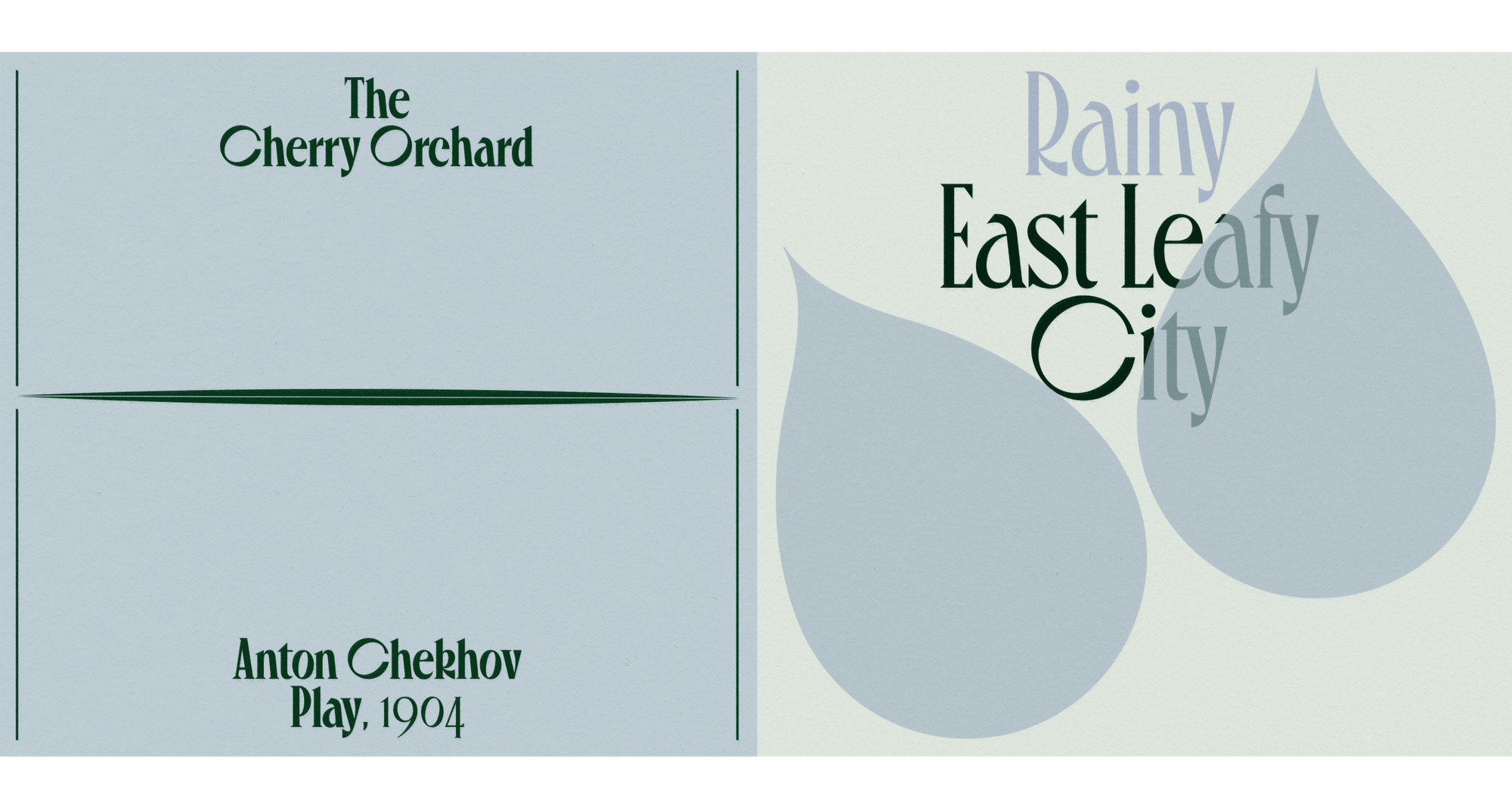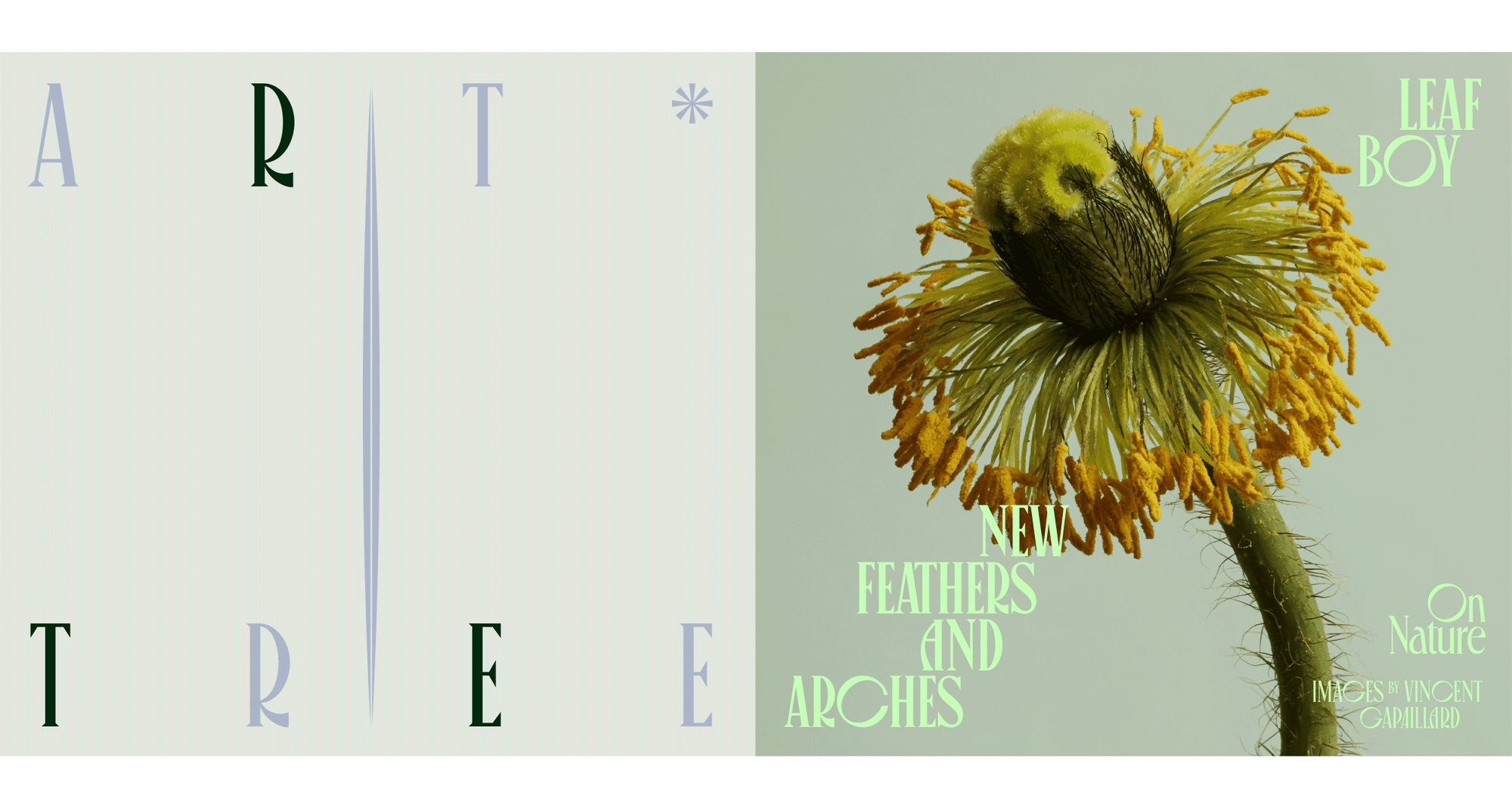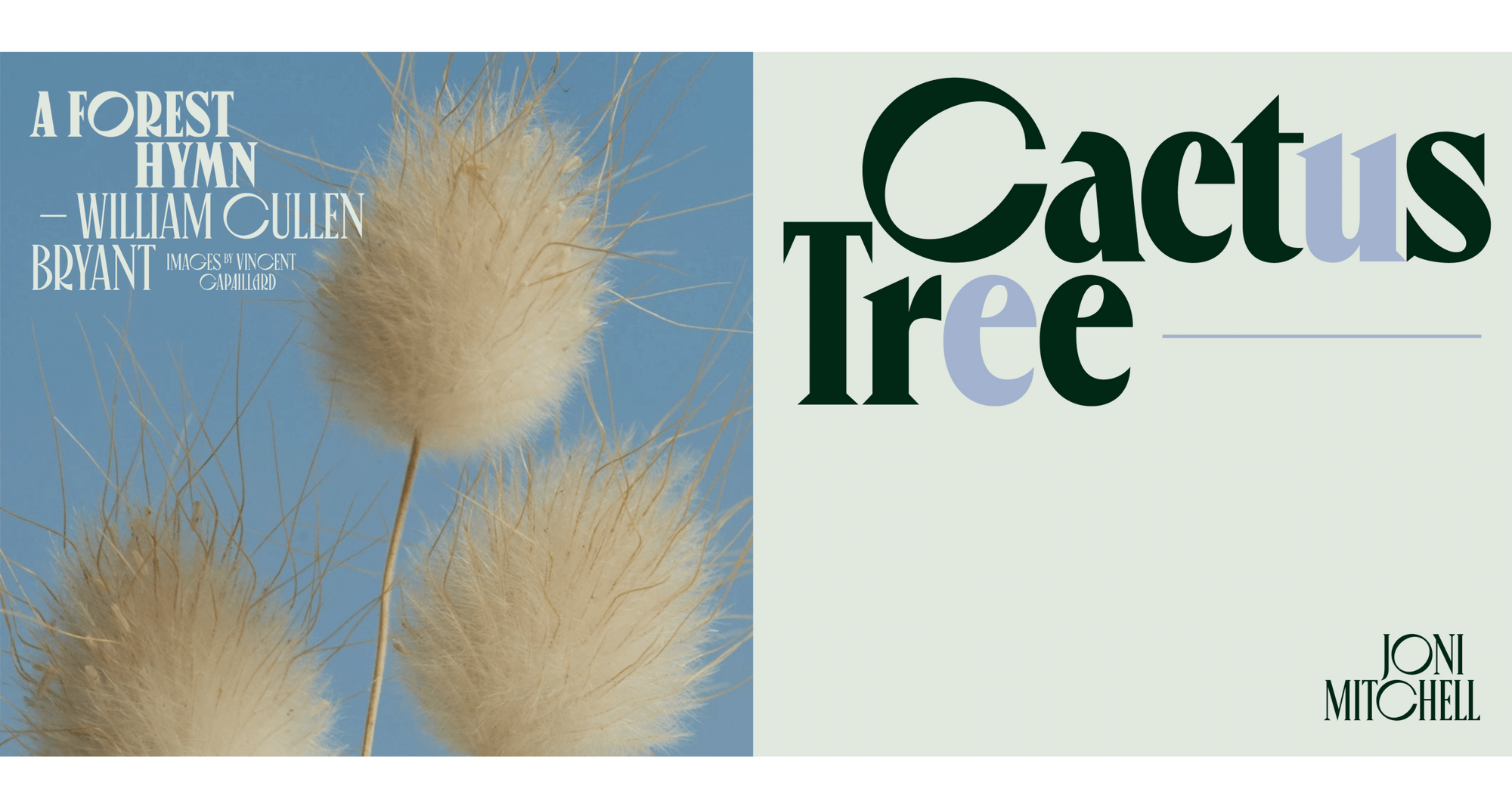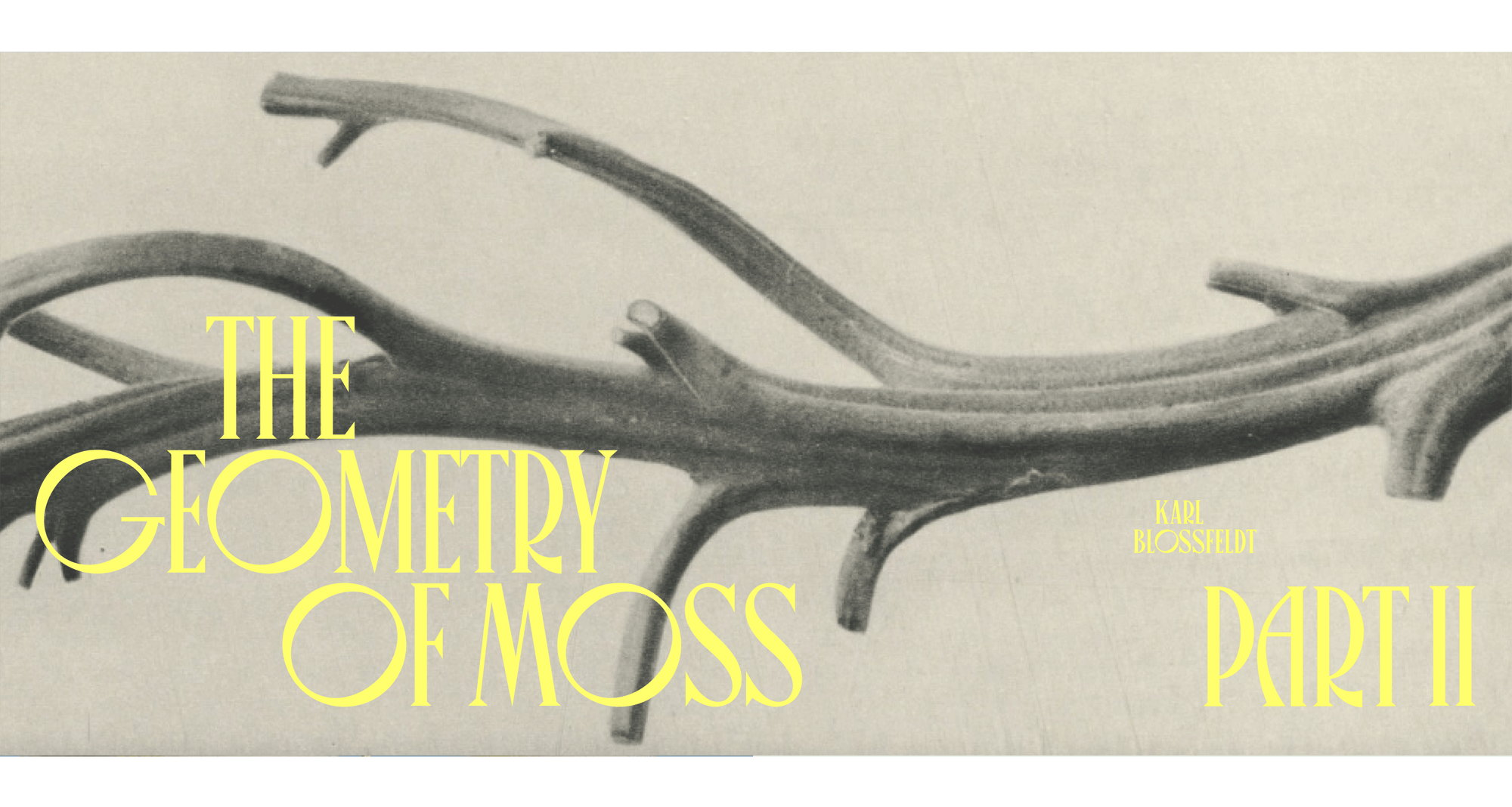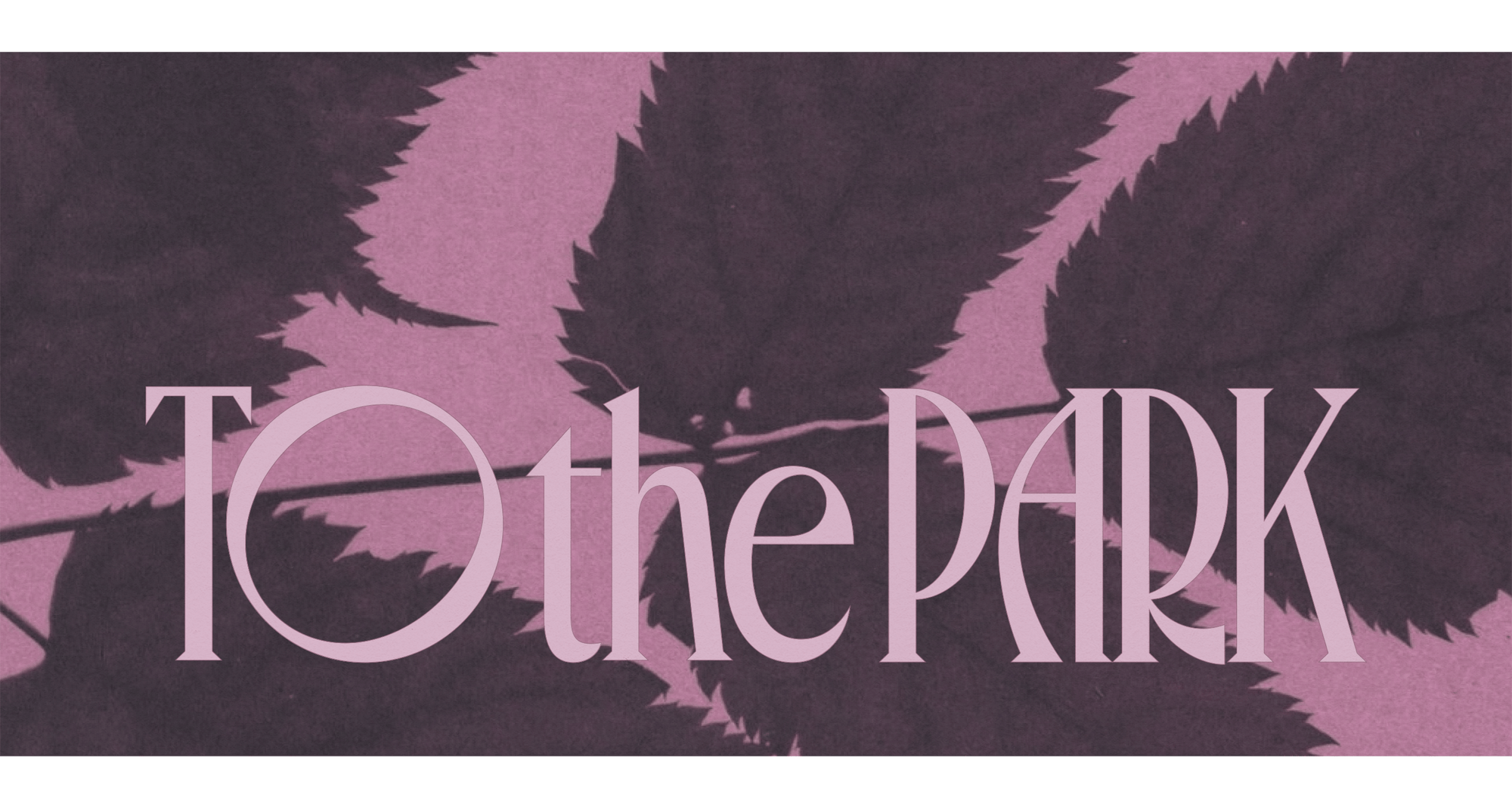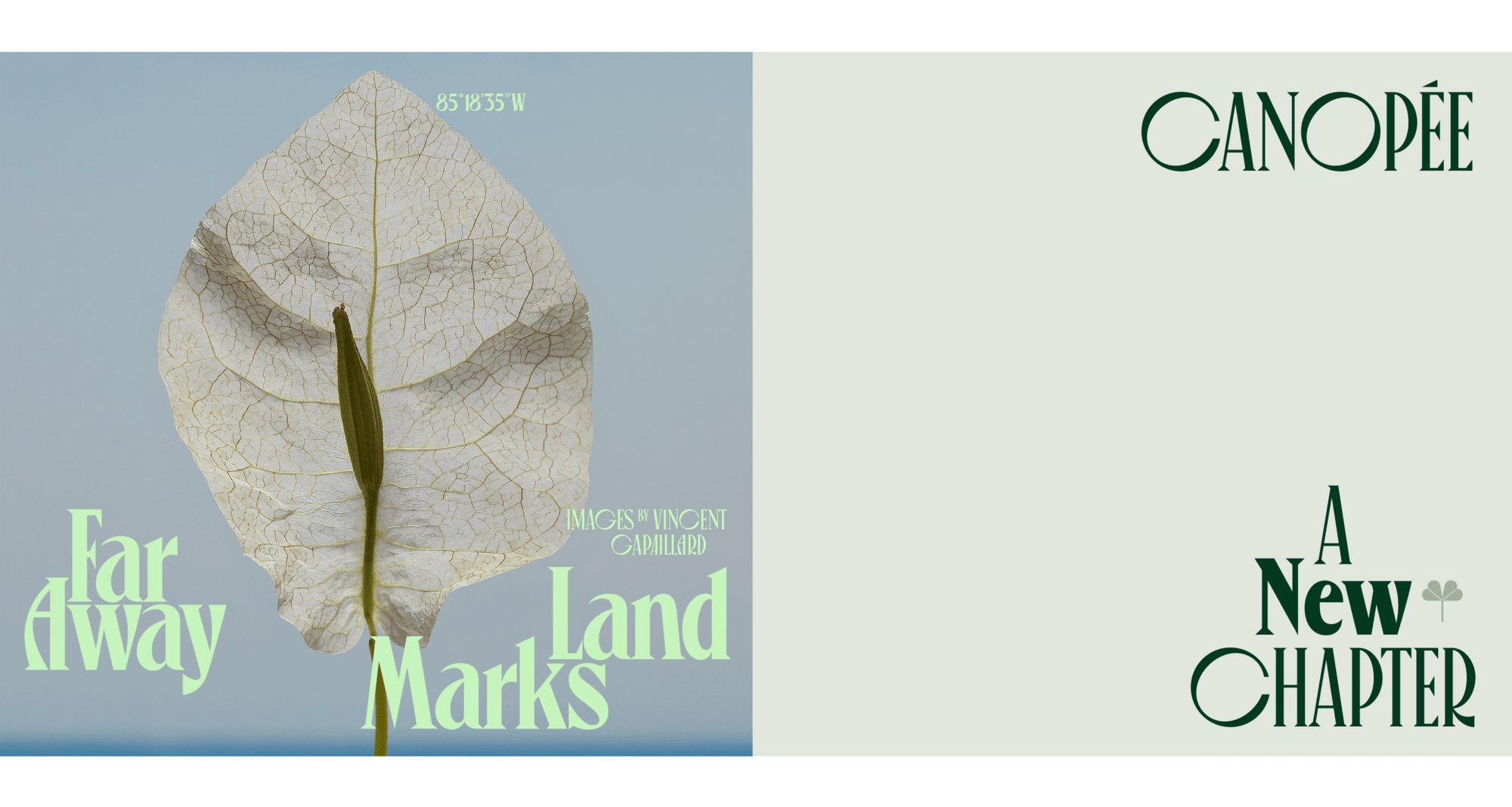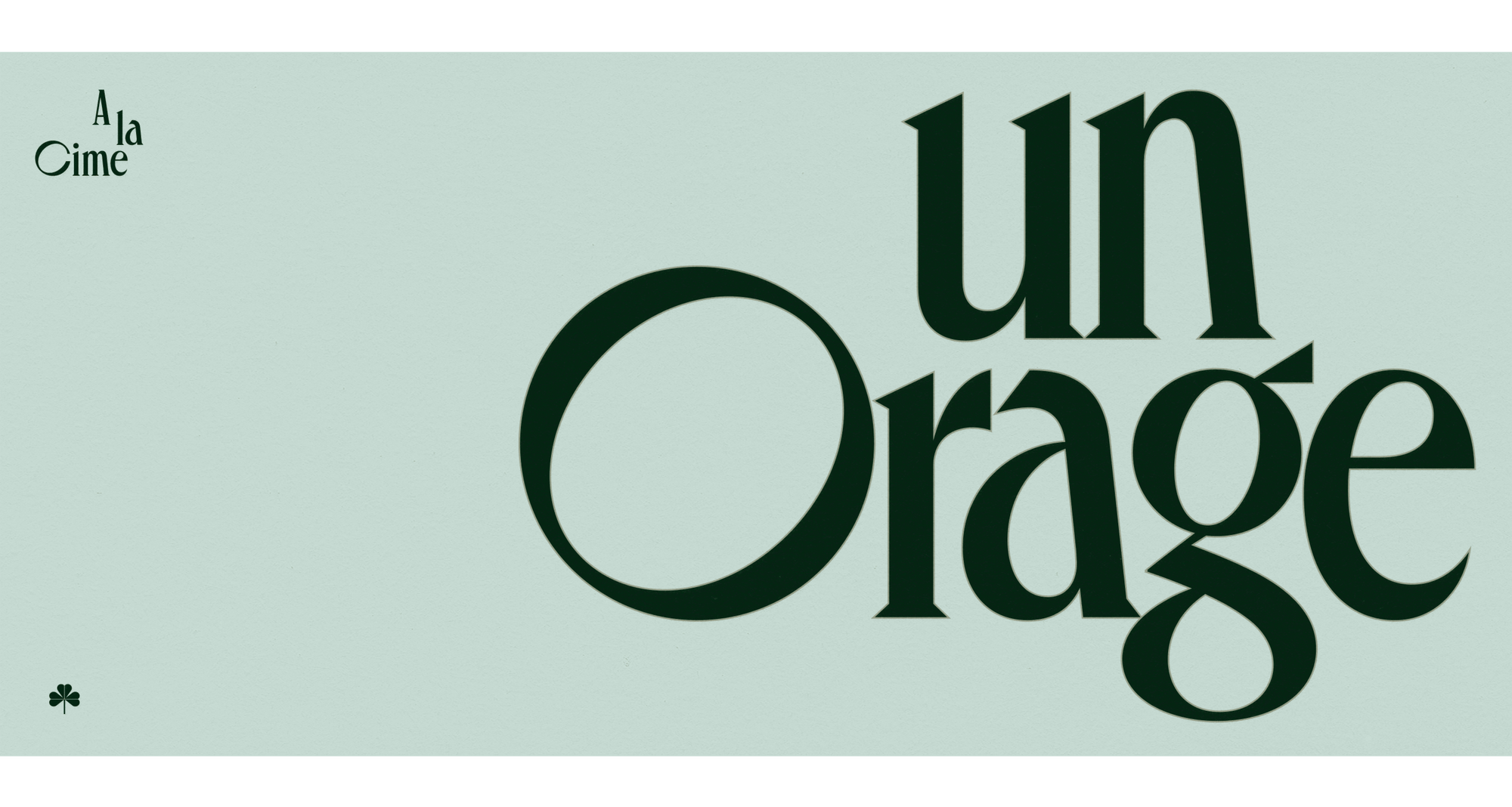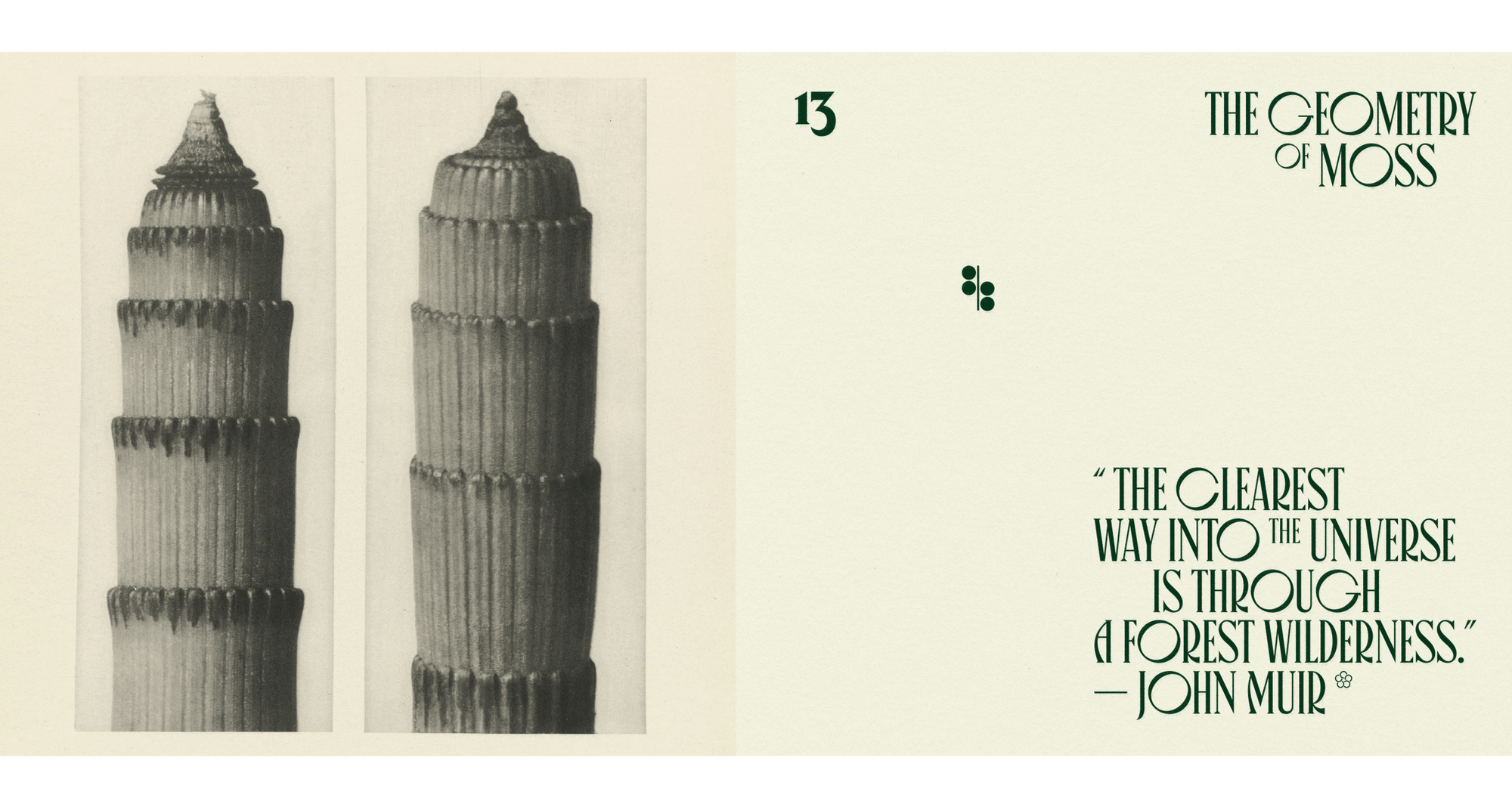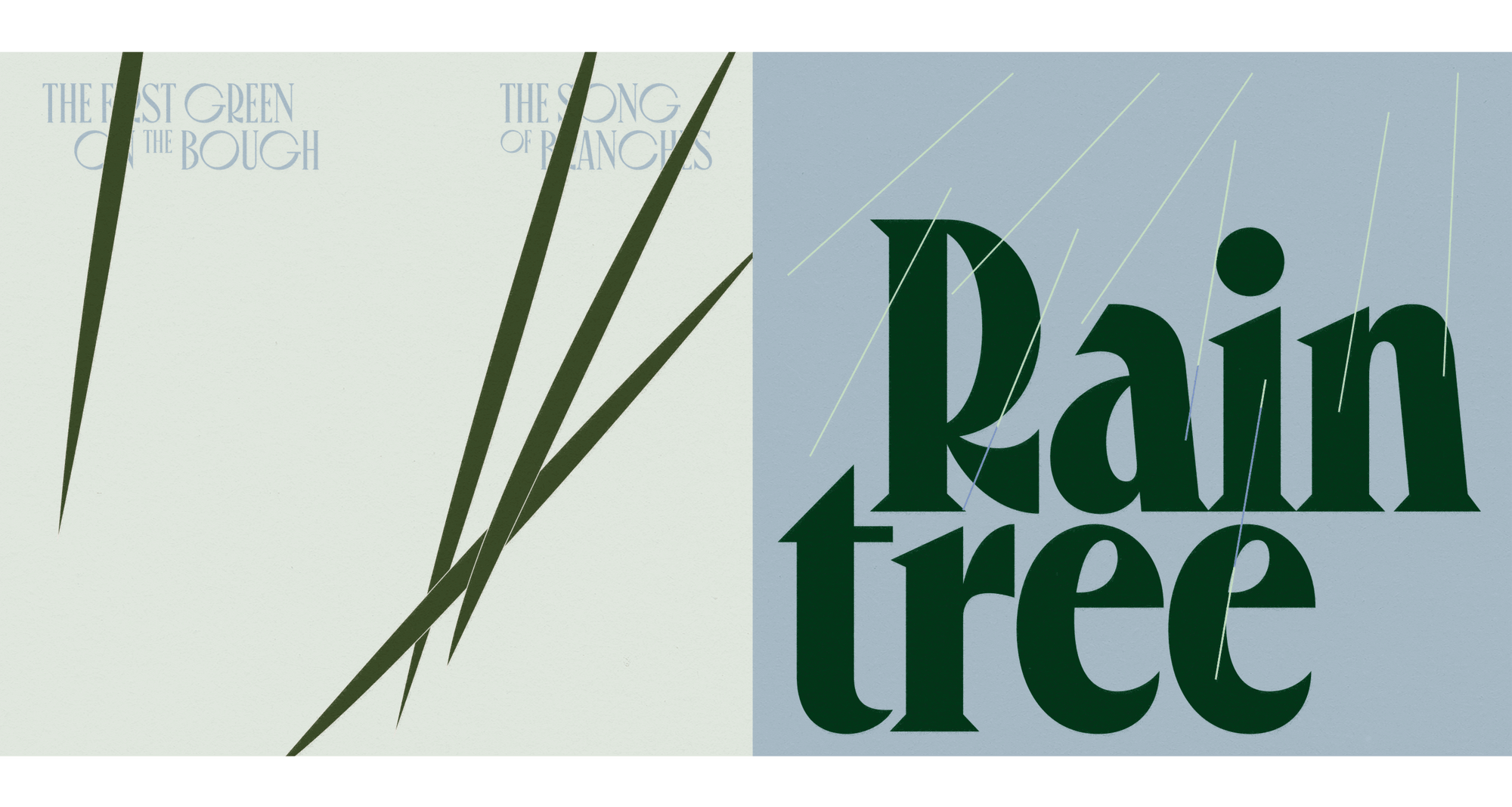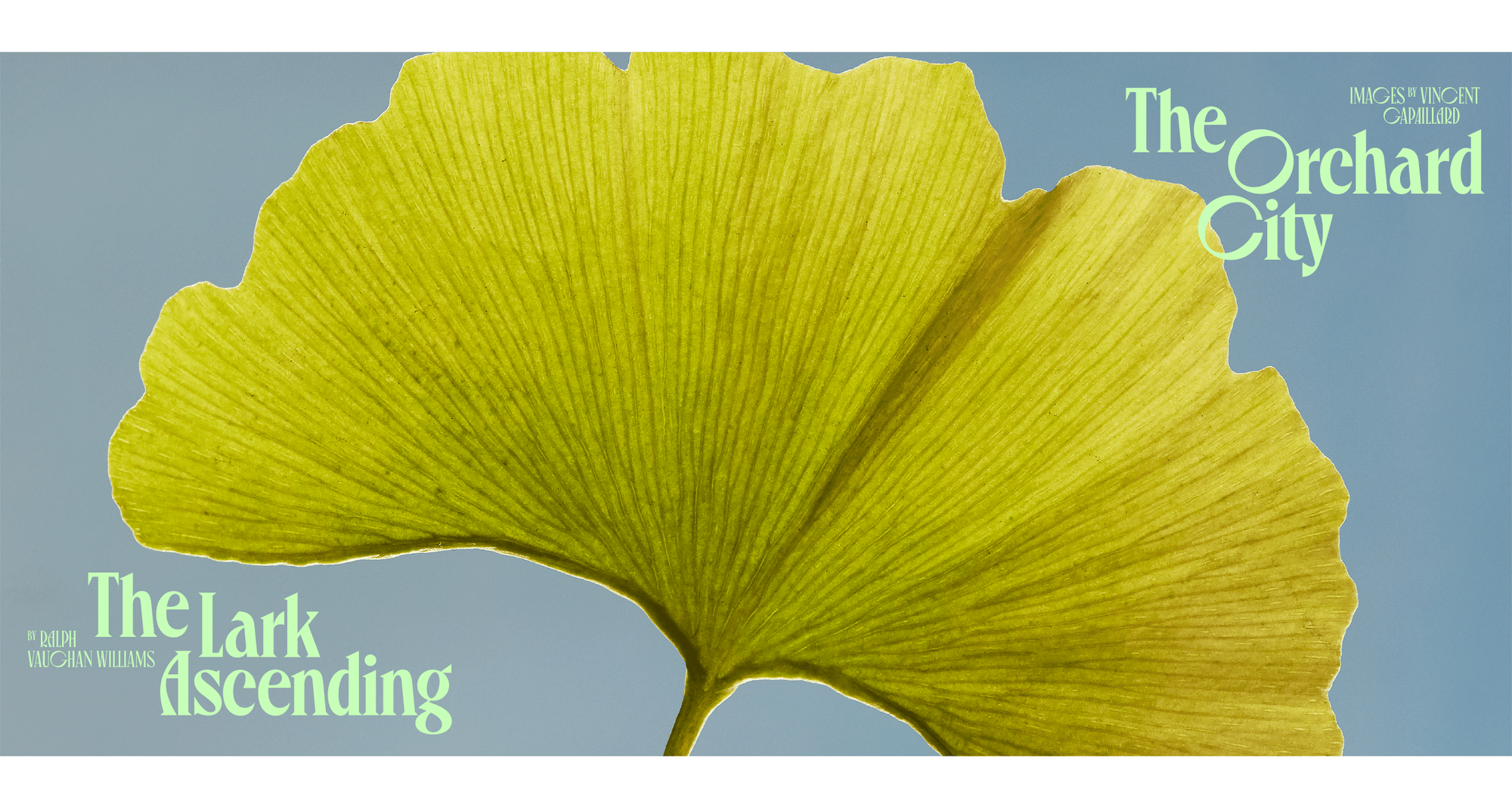
Canopée
TO The PARK
GREEN ARCH
Display - 4 weights
Light, Regular, Bold, Black -
Some stories can only be told by the one who started them. For many years, Canopée waited to come of age to finally adorn herself with a richer plumage. She has travelled the world, met many versions of herself along the way.
Ten years on, the typeface returned to write her next chapter on her own terms: fuller, richer, with a complete lowercase, new weights, and new styles. What defines Canopée is contradiction held in tension. Its serifs are sharp, geometric, precise, yet the letterforms they inhabit are organic, rounded, built with a looseness that pushes back against that rigidity. This friction is intentional. It is where the typeface lives.
Rhythm here is structural, not merely optical. Condensed letters sit alongside extravagantly wide ones: tight, then open, tight, open. That alternation is its pulse.
Designing the lowercase took more than two years. The challenge was not technical, it was one of equilibrium. Roundness alone would have made it soft and unserious. The O especially required a form that could be full without being heavy, present without dominating. The answer lies somewhere between elegance and a certain quiet strangeness: a contemporary off-note that keeps the whole from being merely correct.